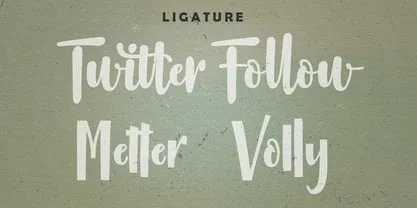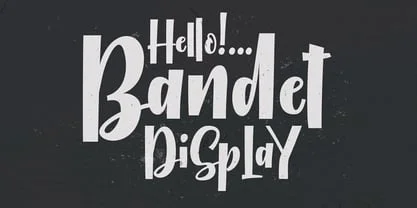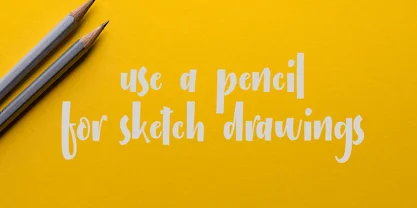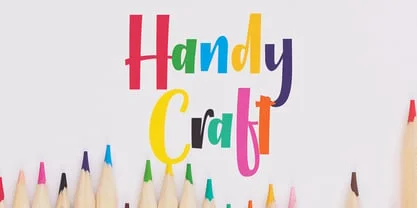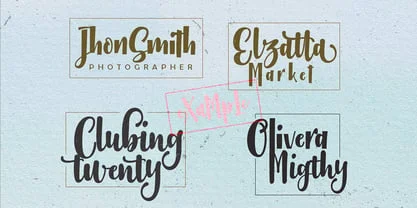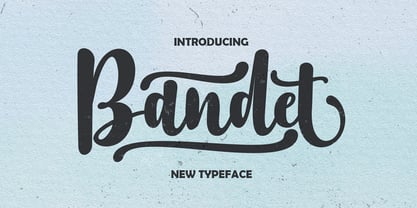
Bandet Font
When a design brief calls for both the kind of restraint that lets content lead and immediate visual impact, type choices matter — Bandet answers that brief. The typeface brings an elegant, calligraphic sensibility to a broad range of creative disciplines, with strong typographic hierarchy support that holds up whether the work is print-first or screen-first.
In practice, Bandet proves particularly effective for boutique logos, packaging design, bridal materials, annual reports, social media graphics. Designers reaching for it find that the type decisions feel resolved rather than laboured — a useful quality when client timelines are tight.
The range of applications extends to perfume labels, luxury stationery, environmental graphics, logo design. That breadth is deliberate: the proportions and spacing were stress-tested across a wide range of mock briefs before the typeface was finalised.
Pairing Bandet with a contrasting serif or a neutral grotesque gives mixed-format layouts a clear visual grammar without requiring constant size adjustments to establish hierarchy.
UX designers establishing typographic systems for digital products find Bandet a reliable choice for projects that demand both personality and restraint. The design avoids the self-conscious quirkiness that dates quickly, settling instead for considered distinctiveness that holds up over time.